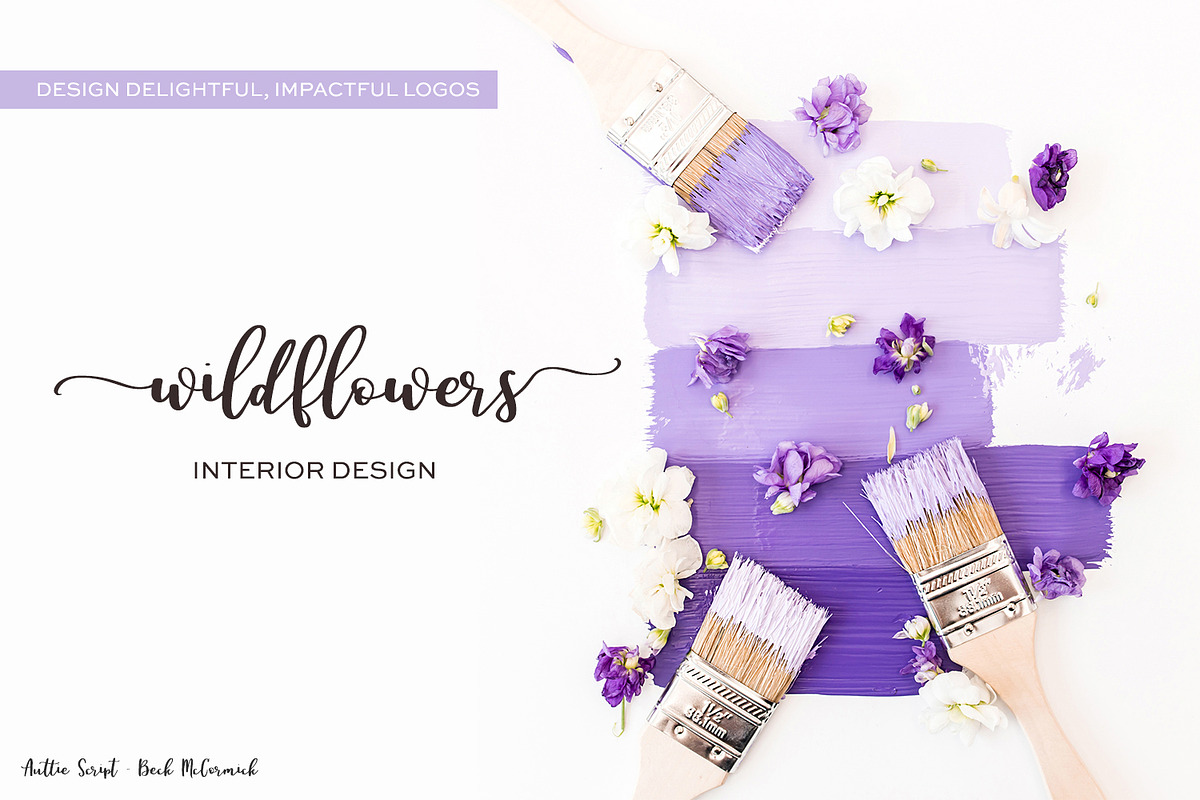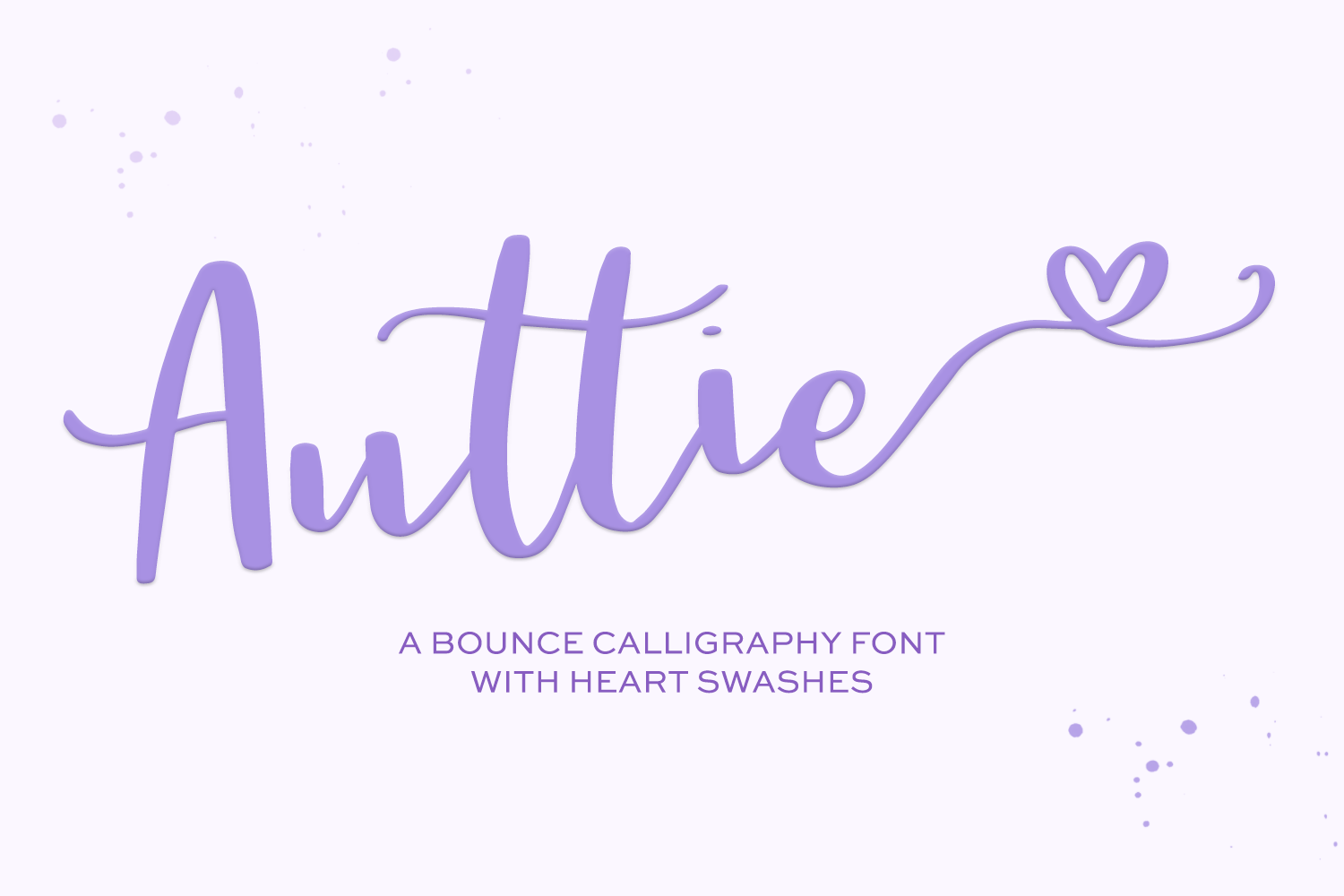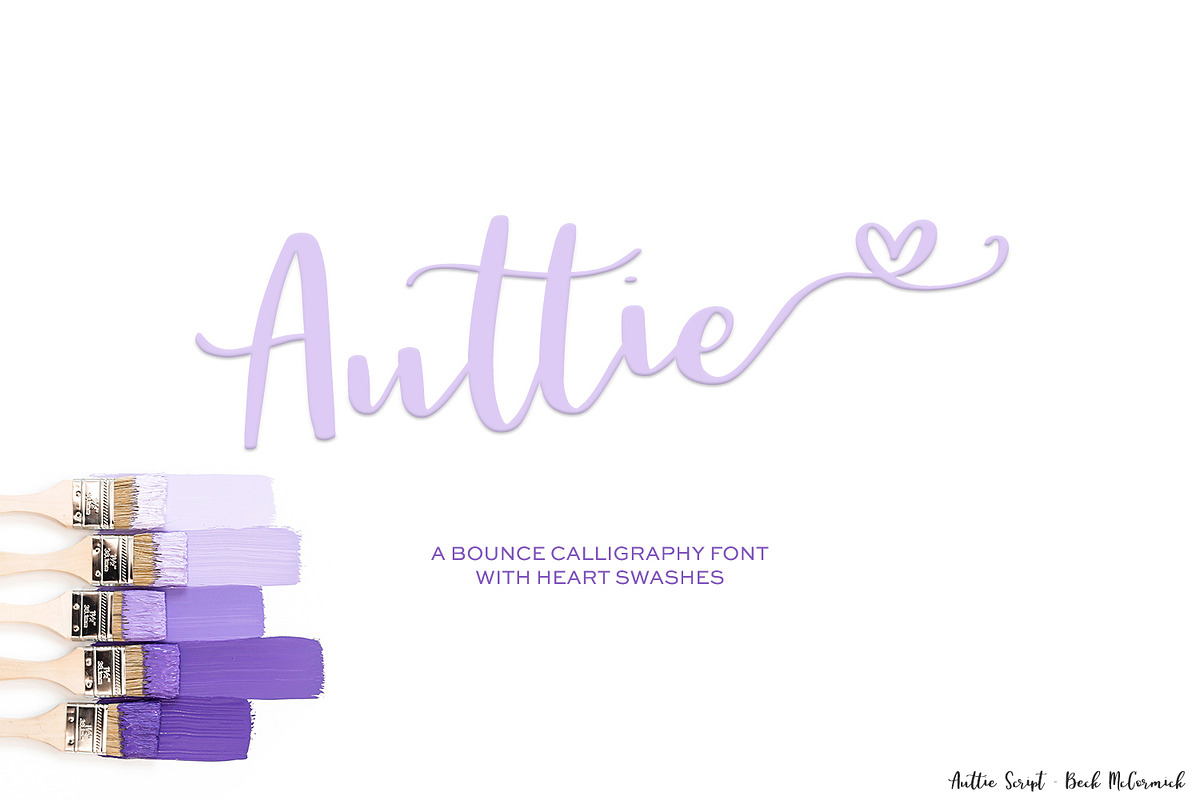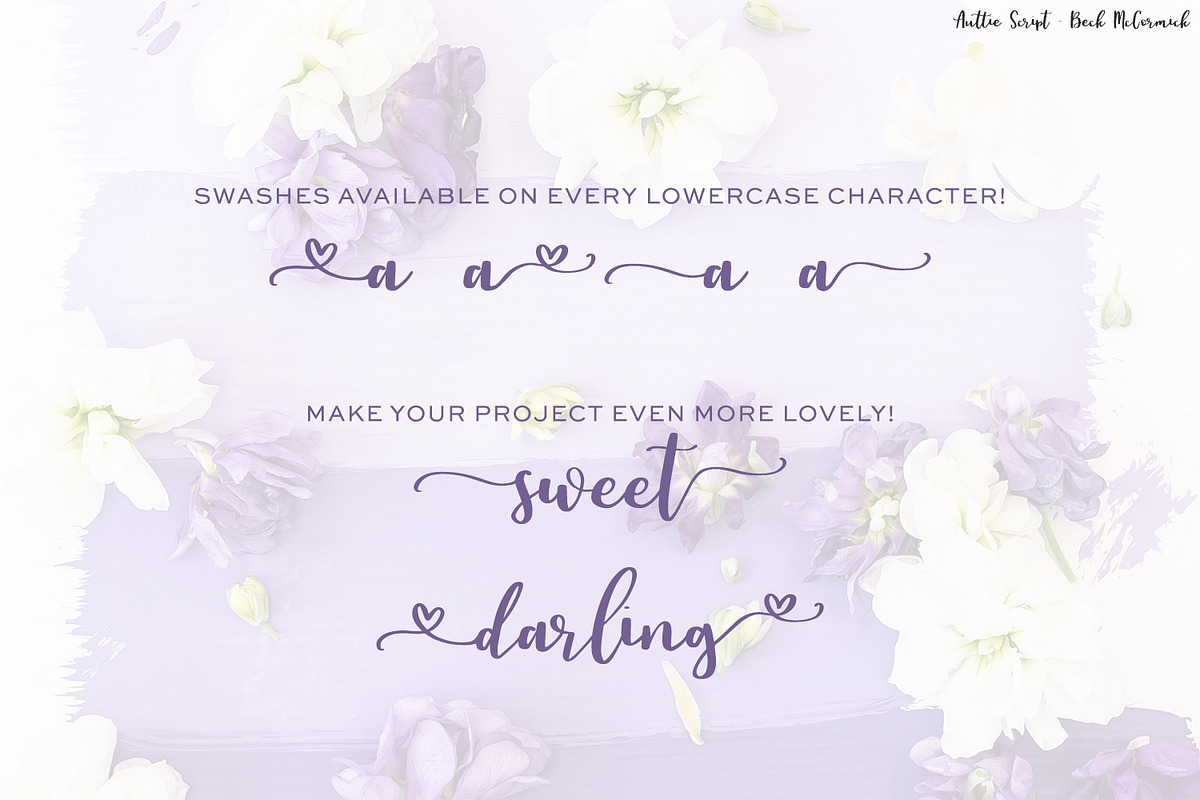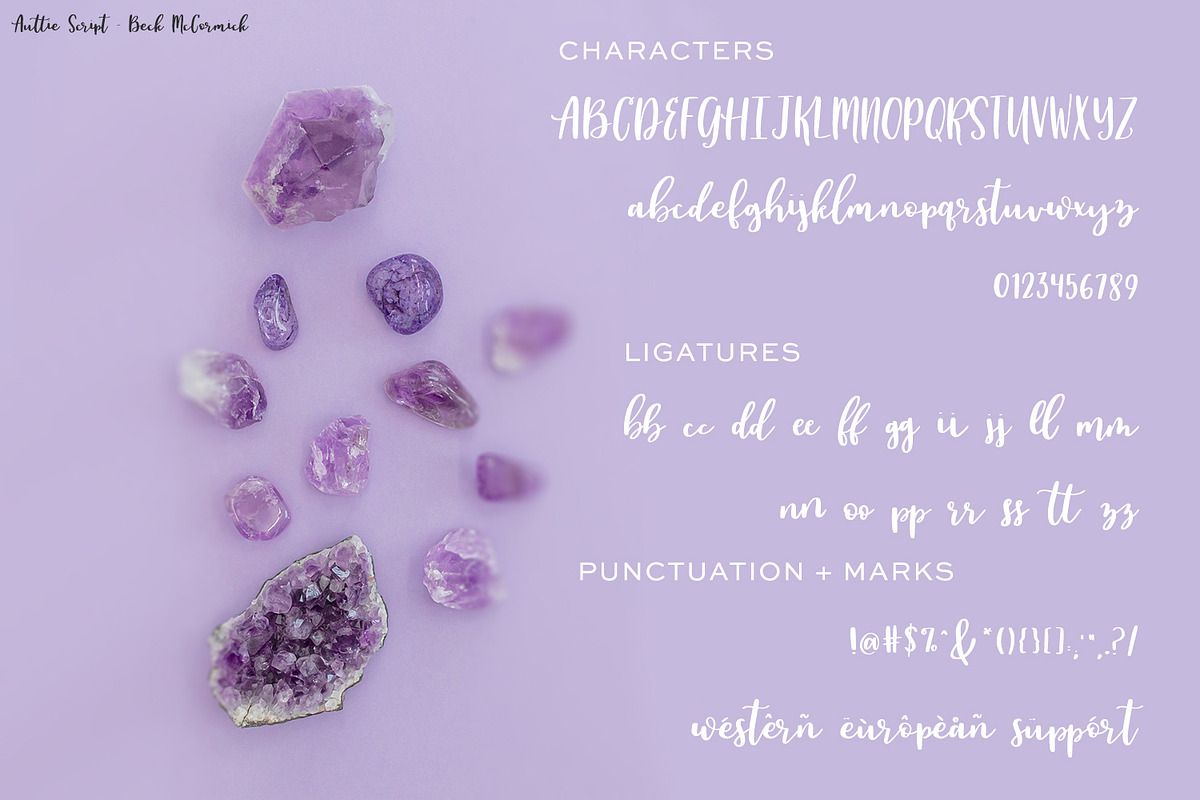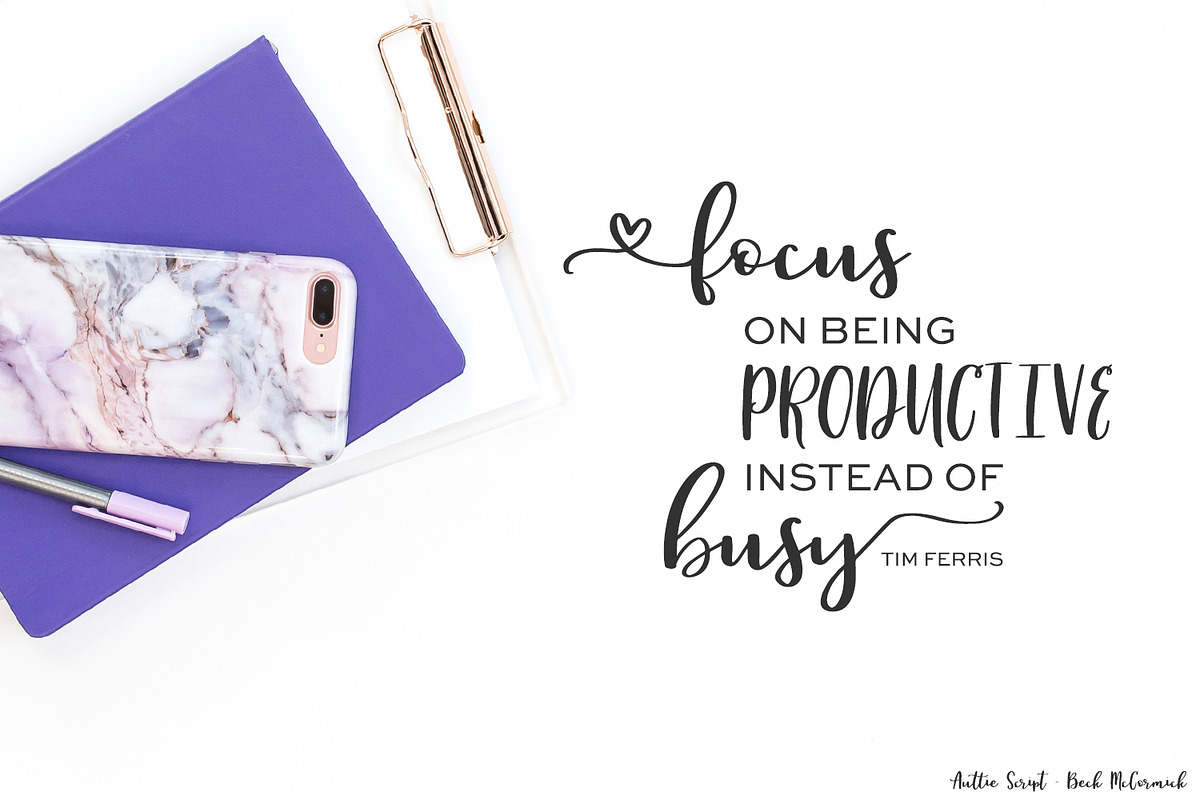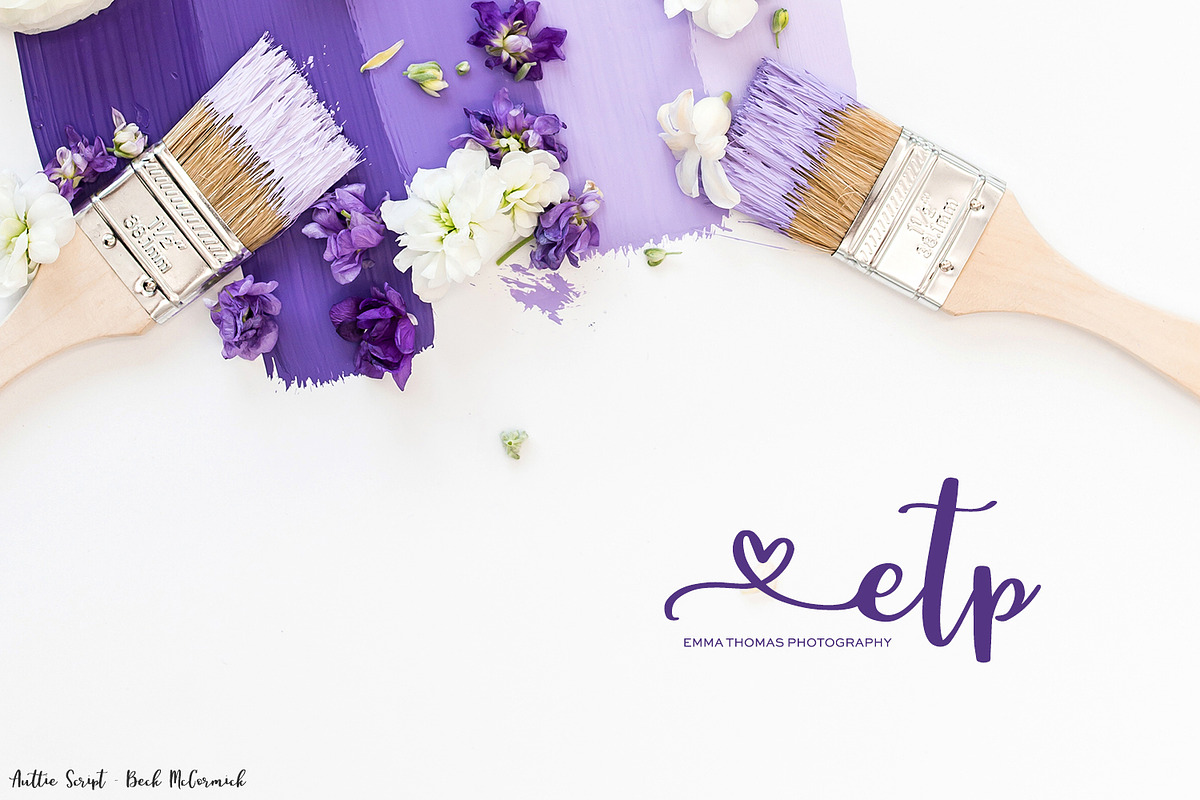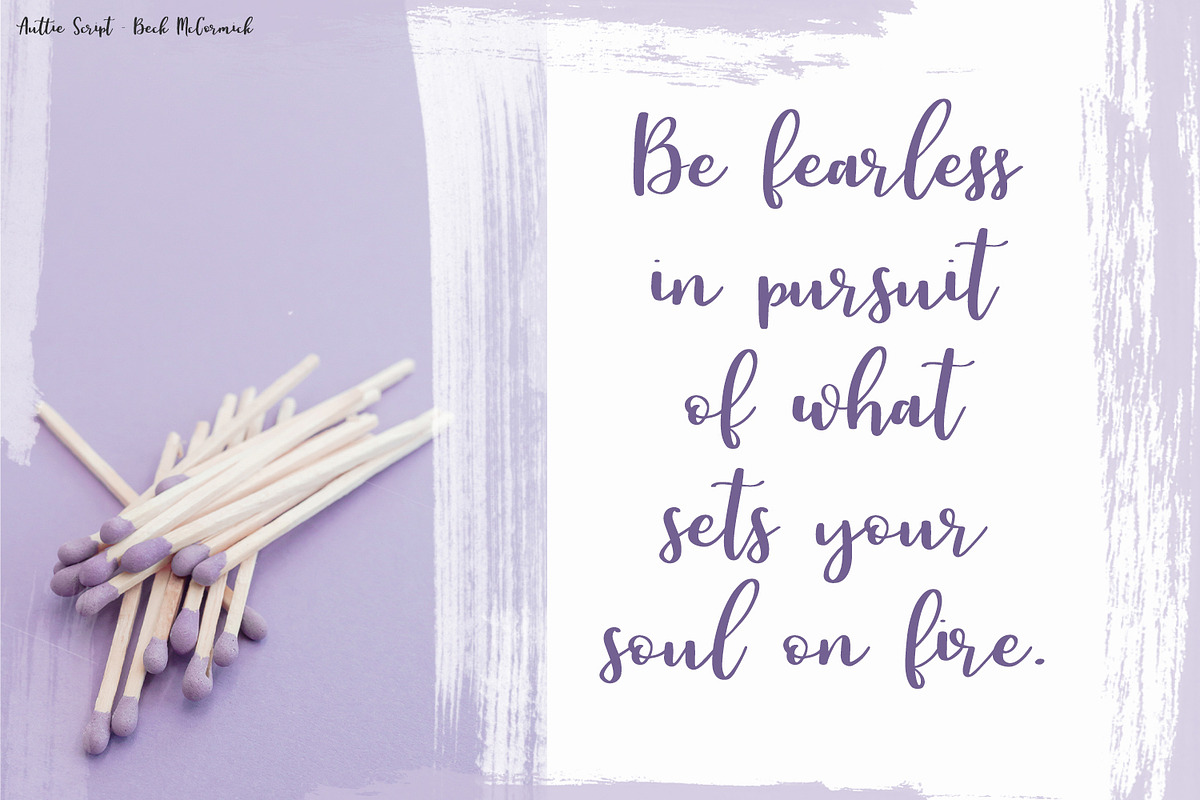
Auttie Calligraphy Font with Hearts
Meet Auttie, a sweet hand-lettered script with adorbs heart swashes, and lovely flowy swashes.
Features include:
- a varied, funky baseline to give a realistic hand-lettered look
- double letter ligatures
- left + right heart swashes and flowy swashes on each lowercase letter
- Western European Language Support